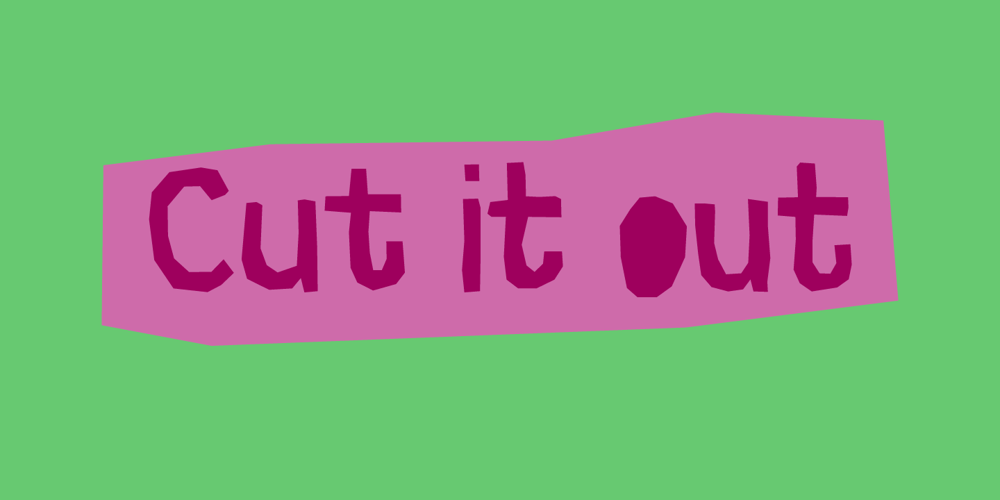
Cut It Out Font Family was designed by Jakob Fischer and published by PizzaDude.dk. Cut It Out contains 3 styles and family package options. Cut it out is made to look as if it was cut out of paper. Comes in 3 different versions: Regular, Soft and Softer. The Regular version has straight lines, whereas Soft and Softer (surprisingly) is more soft-edges. Comes with loads of international letters and the classic ligatures. Also included are ligatures for double capital letters … but that’s not all!!! Every single lowercase glyph has 5 (!) different versions! – And that goes for ALL 3 versions!